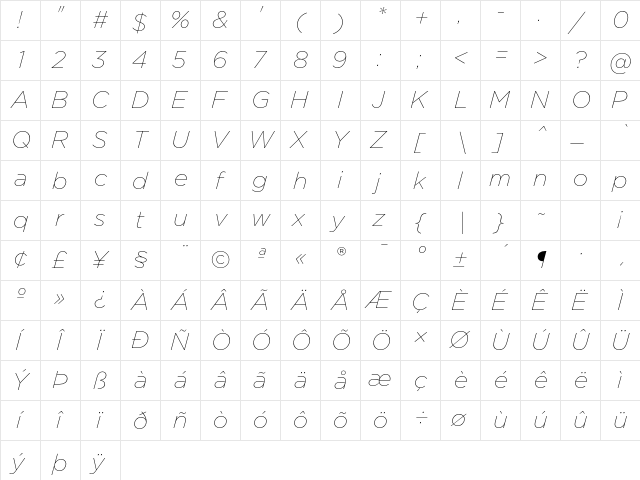
Gotham Thin Italic Font Preview
| Foundry | Hoefler & Frere-Jones |
| Designer | Tobias Frere-Jones |
Design Context for Gotham Typeface
Gotham offers clean, dependable letterforms without strong stylistic allegiance, making it a practical choice for designers who need flexibility. The dynamic lean of this cut emphasises speed and emphasis in any layout. Its slender proportions lend an understated elegance to any composition.
Pro Tip: Try Gotham for annotation and caption copy alongside an upright companion — the contrast in angle creates a dynamic but ordered typographic system.